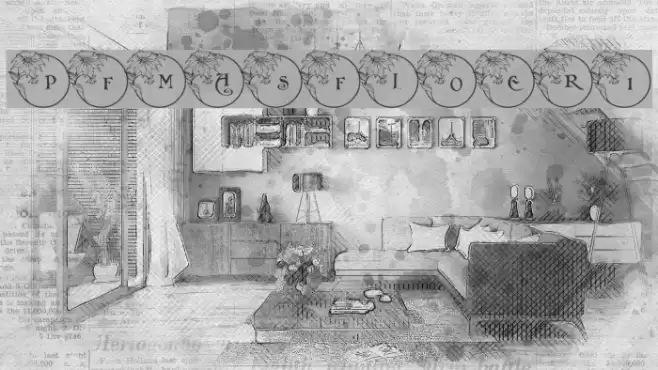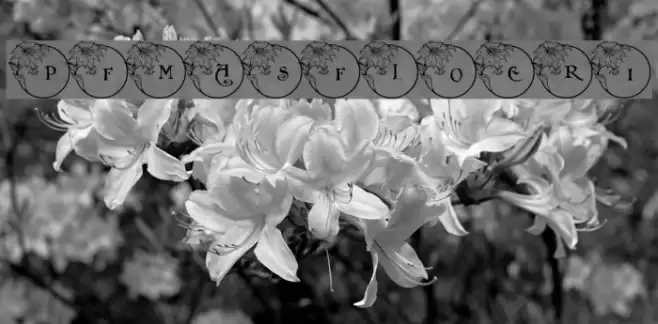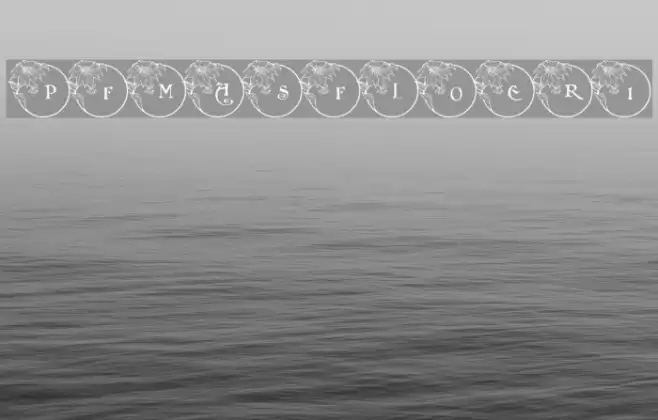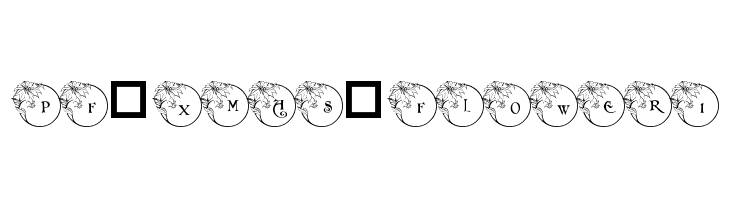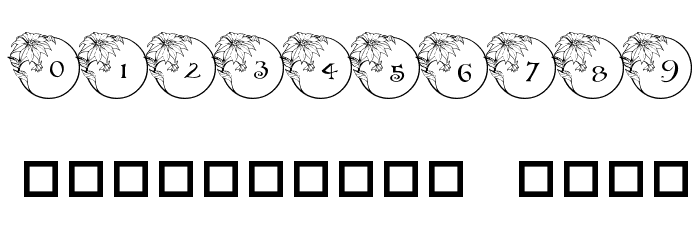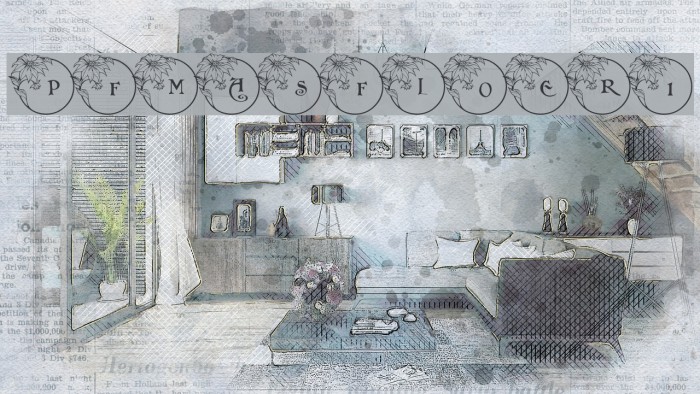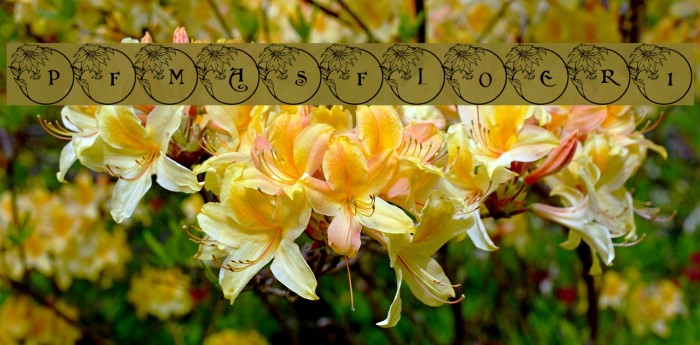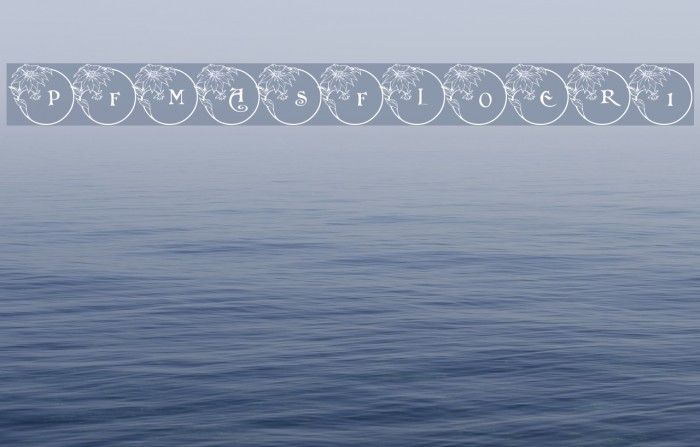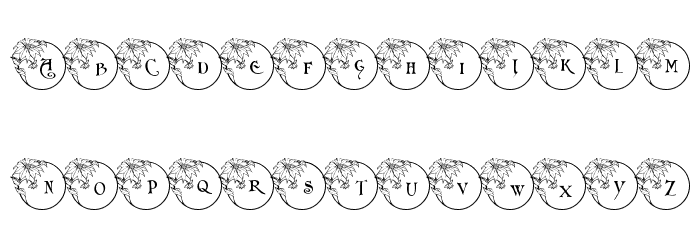
pf_xmas_flower1 Font
pf_xmas_flower1 Description
This decorative font features each character encased in a circular ornament adorned with floral designs, evoking a festive and elegant feel. The uppercase and lowercase letters are distinct, with a whimsical flair that adds a touch of charm. The numbers and special characters are similarly styled, maintaining consistency across the set. The intricate floral patterns suggest a holiday theme, making it ideal for seasonal projects. The font's unique style is both playful and sophisticated, perfect for adding a decorative touch to any design.
A decorative font with floral-ornamented characters, ideal for festive designs from Christmas (Xmas) fonts.